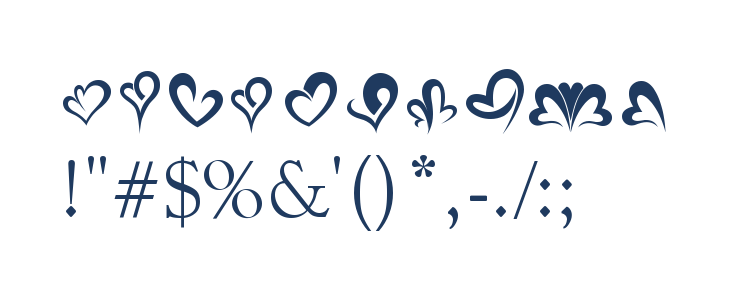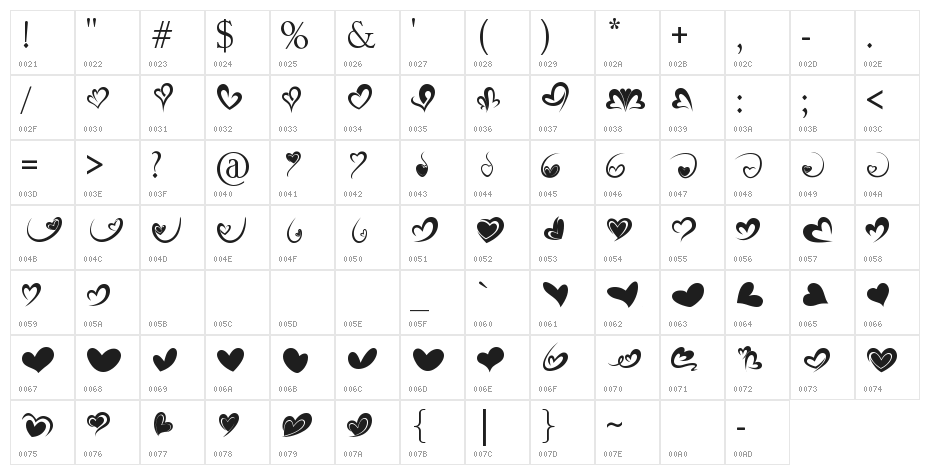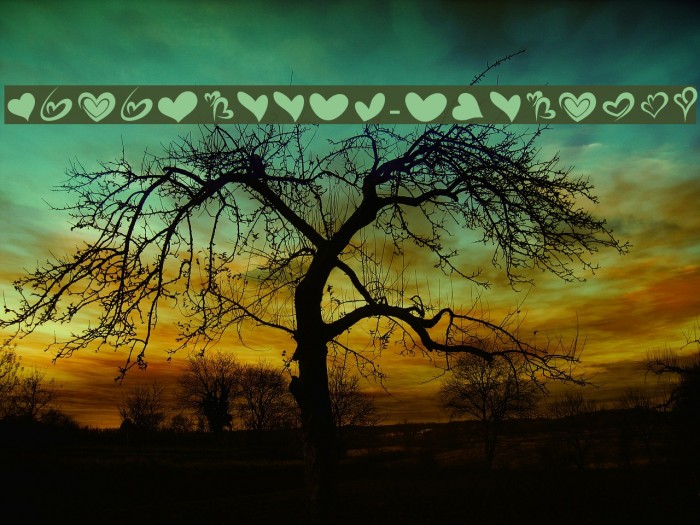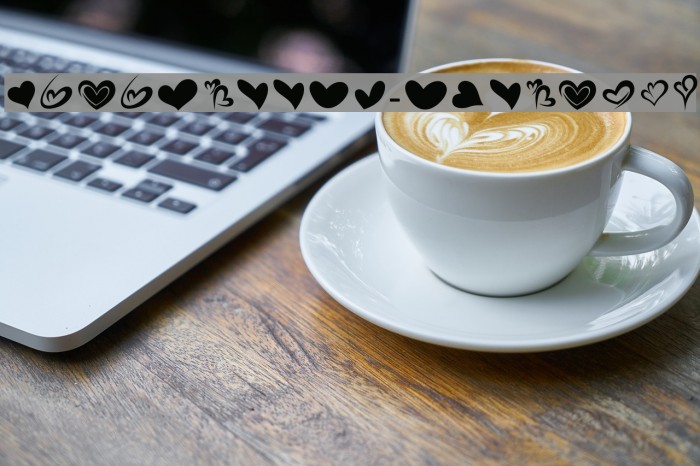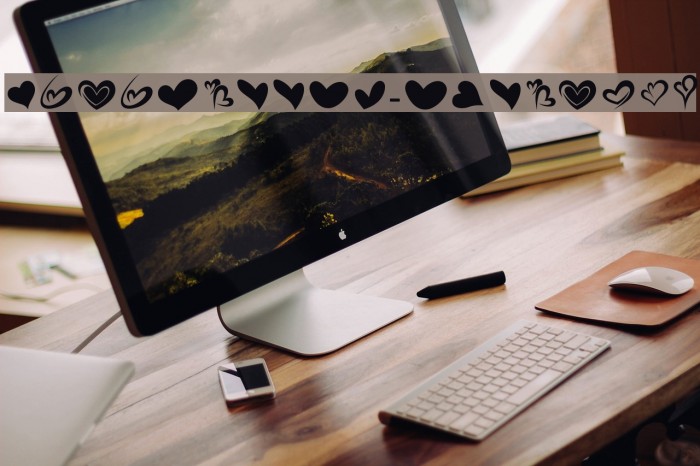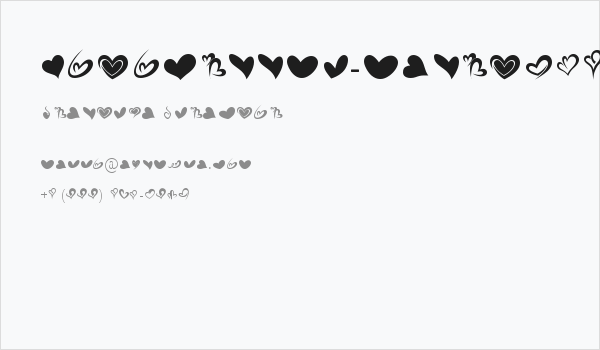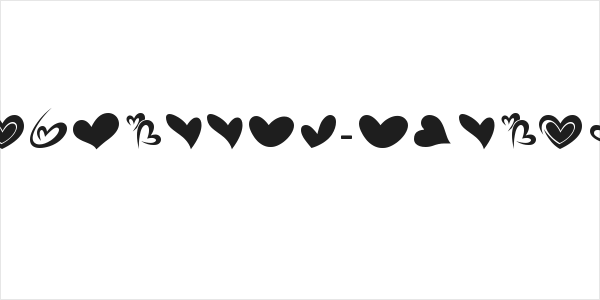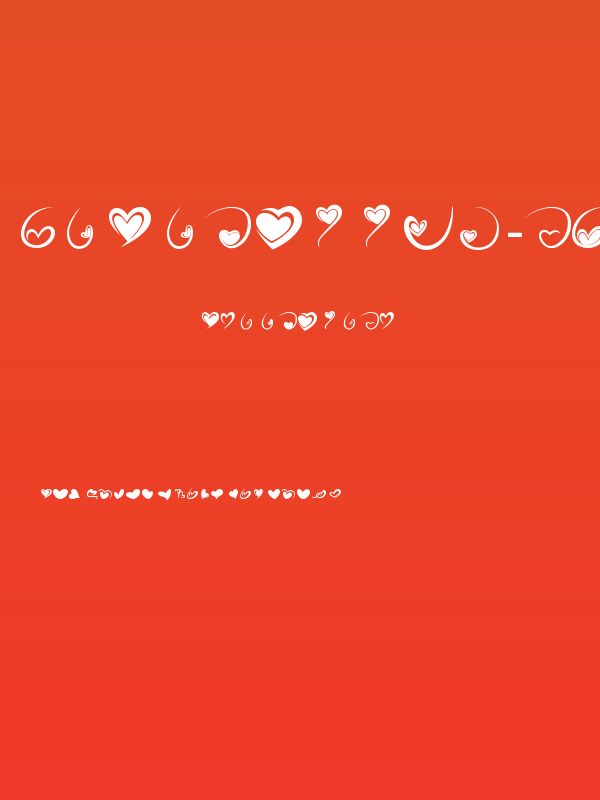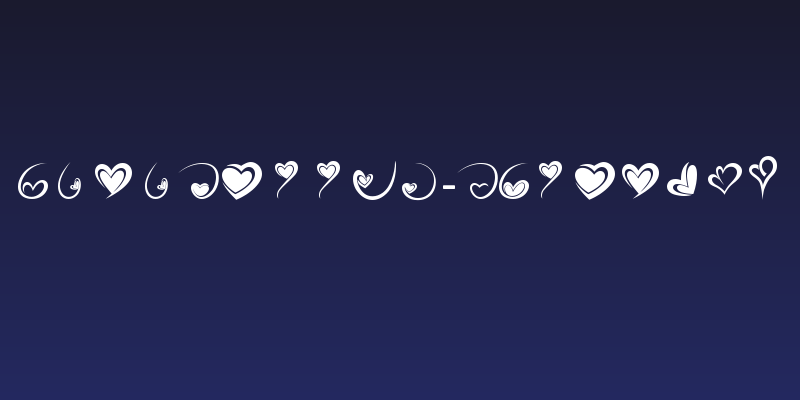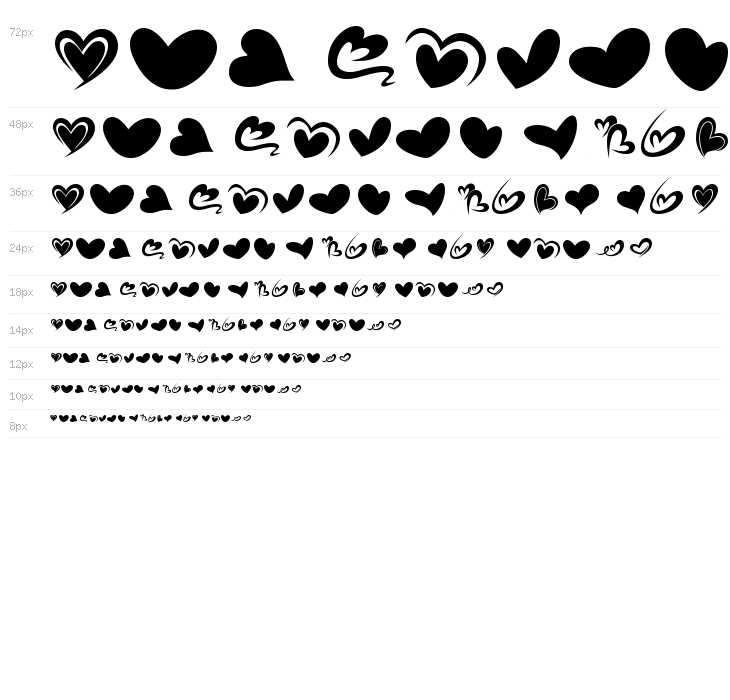
fotograami-hearts01 Font
fotograami-hearts01 Description
This font features a whimsical and romantic design, characterized by heart-shaped motifs integrated into each character. The overall style is playful and decorative, with a strong emphasis on curves and flourishes. Each letter and symbol is uniquely crafted to incorporate heart elements, making it ideal for projects that require a touch of love and creativity. The font is highly decorative, with a bold appearance and medium contrast in stroke thickness. It is perfect for use in designs that aim to convey affection, such as wedding invitations, Valentine's Day cards, or romantic branding.